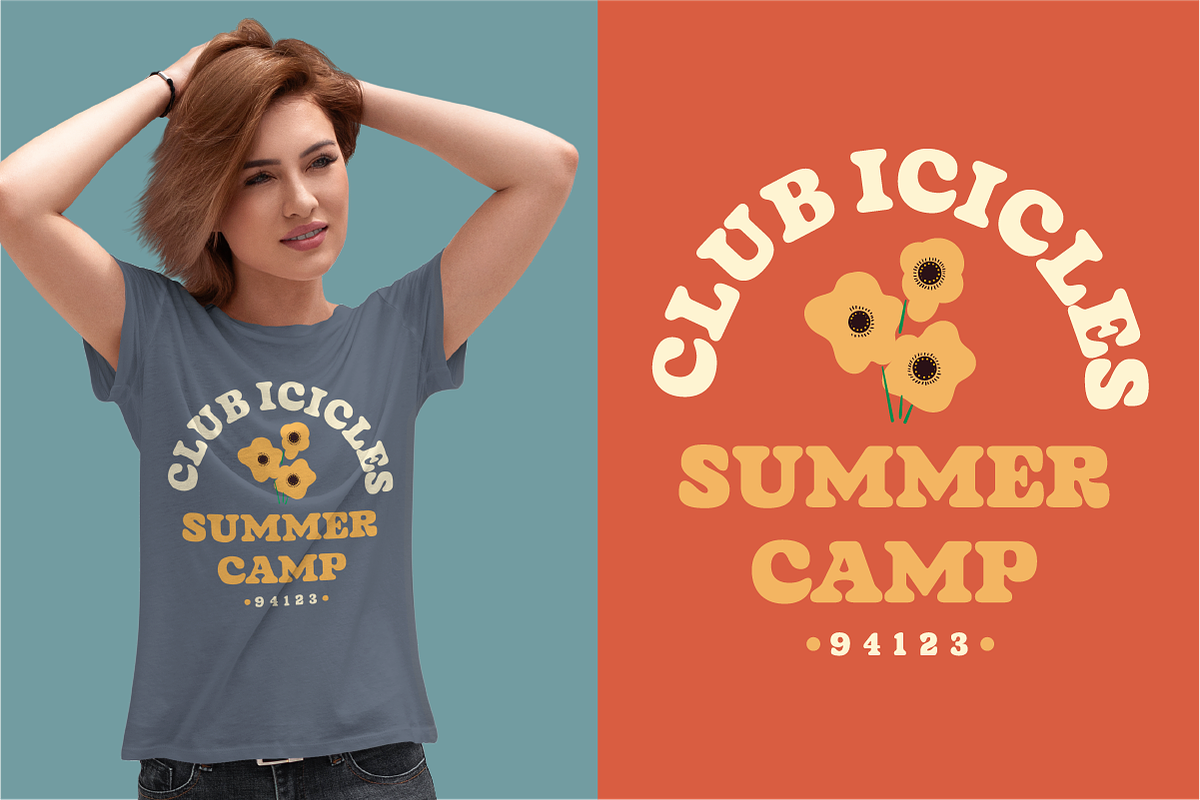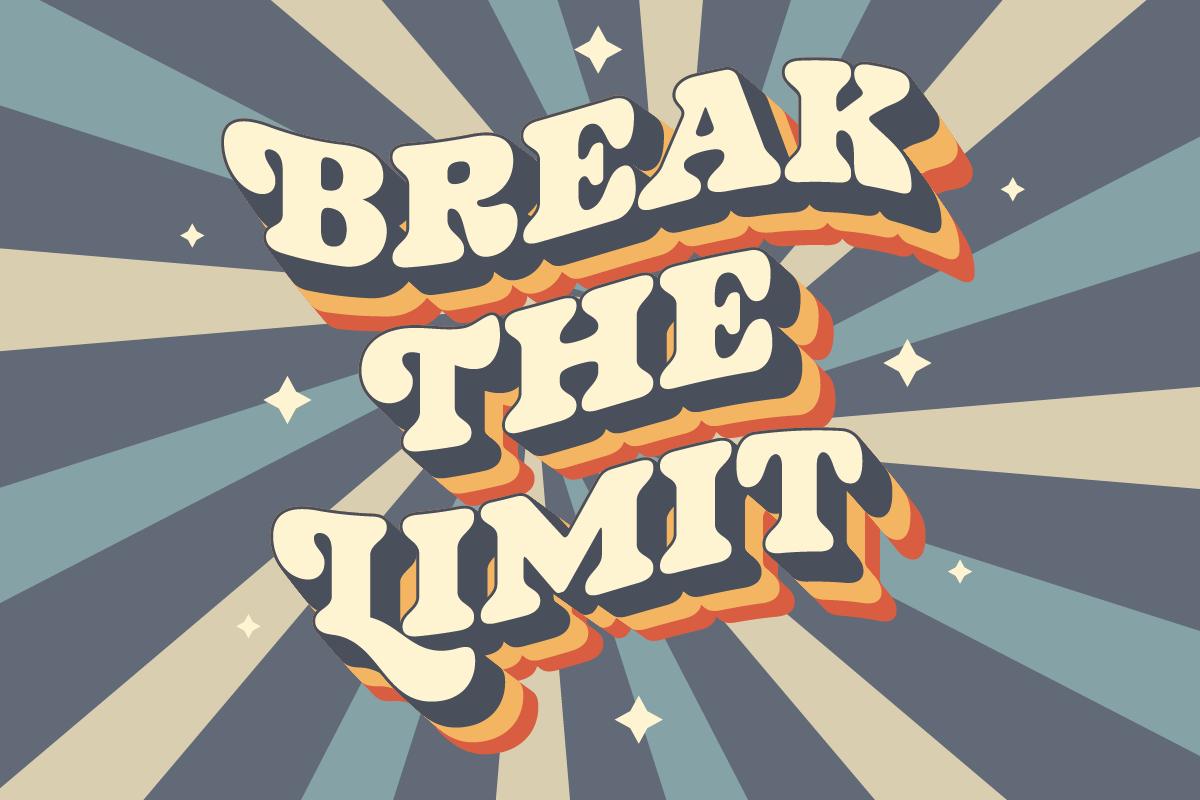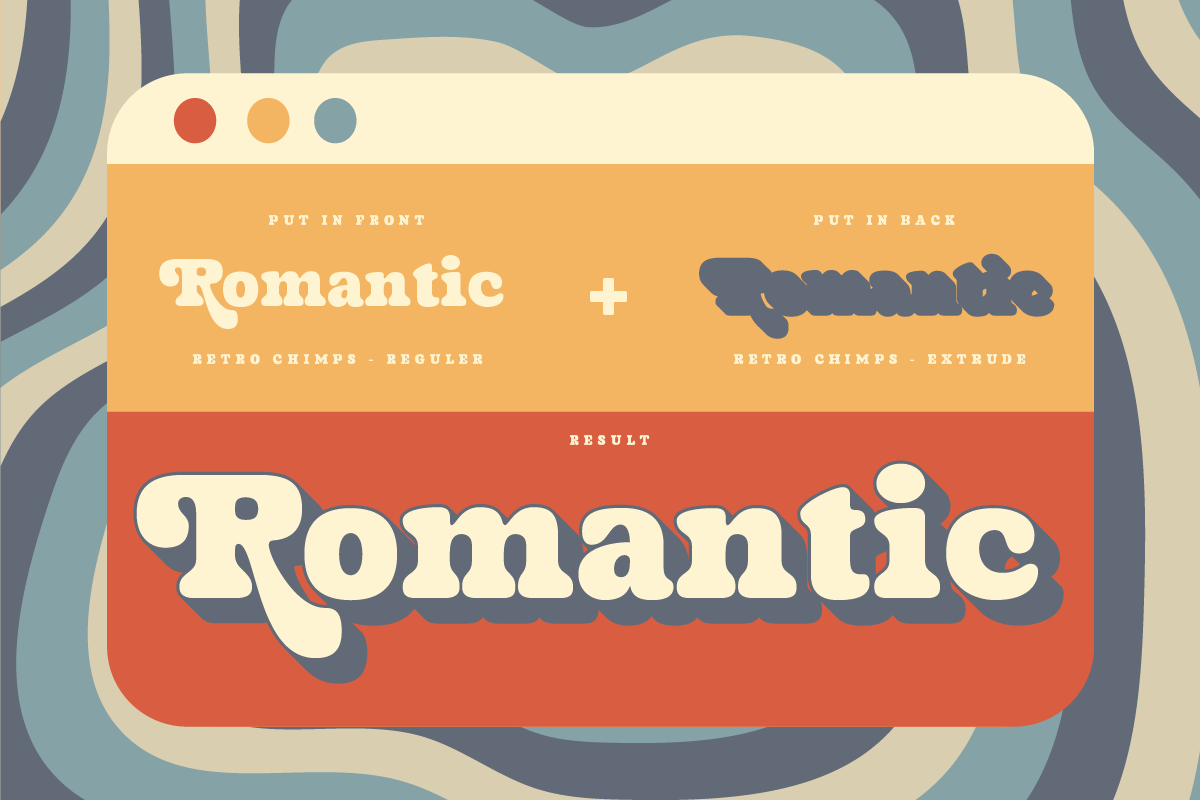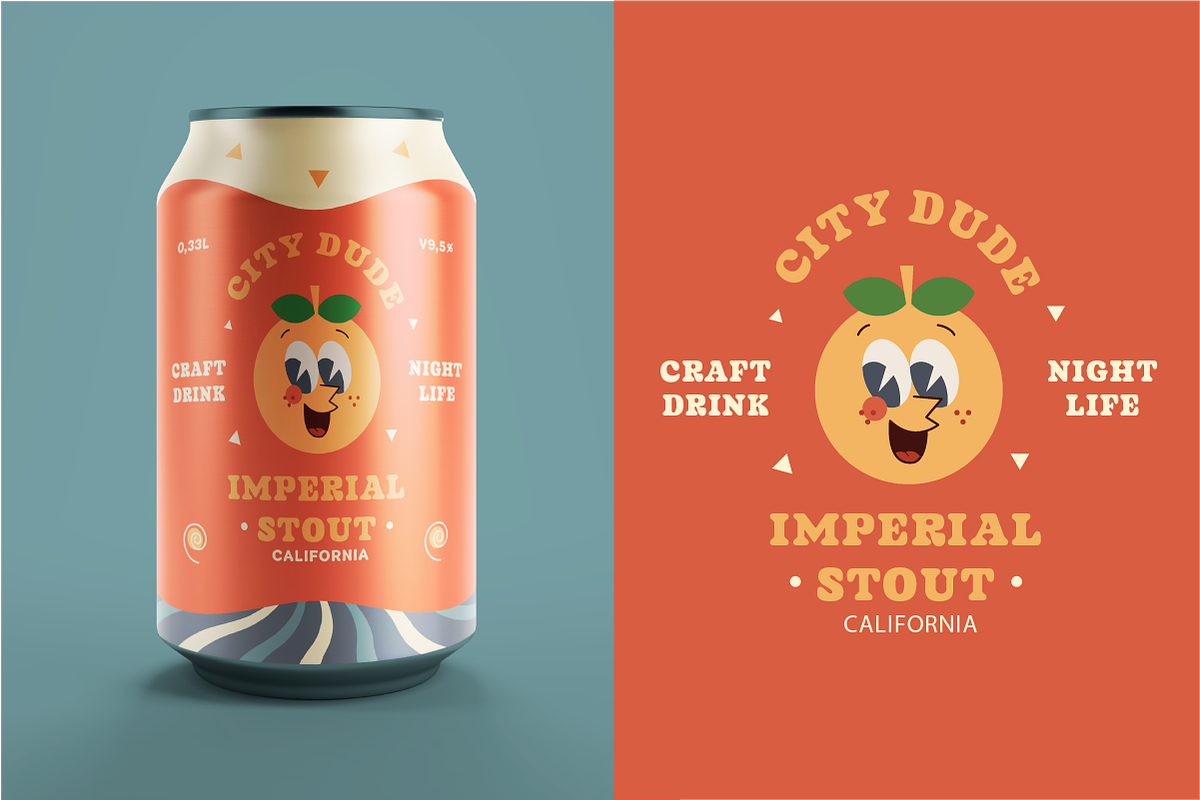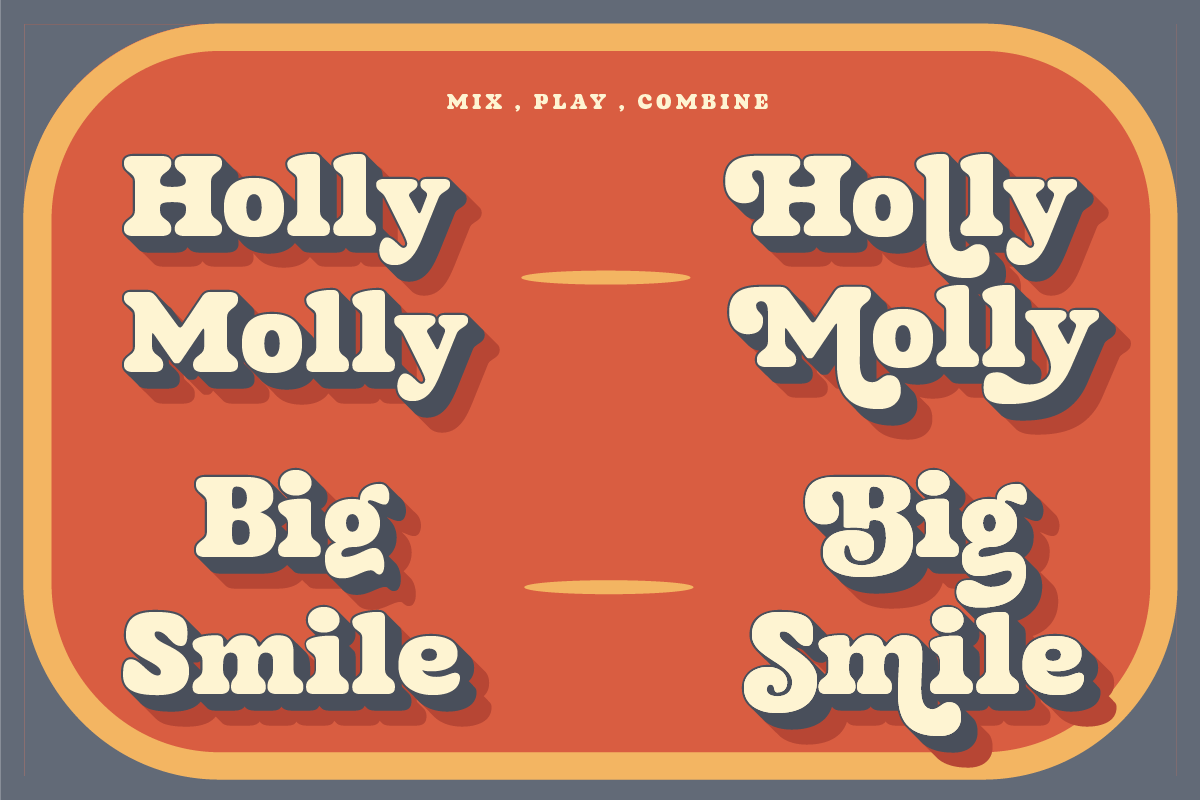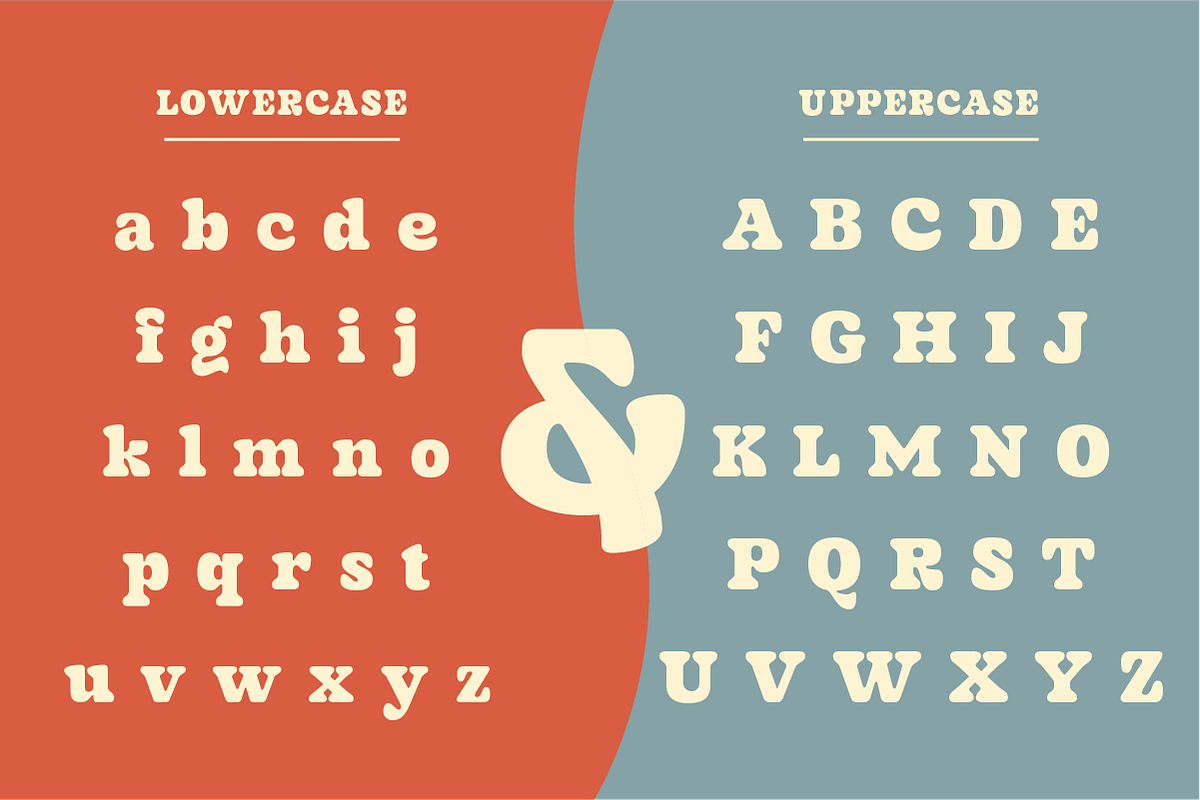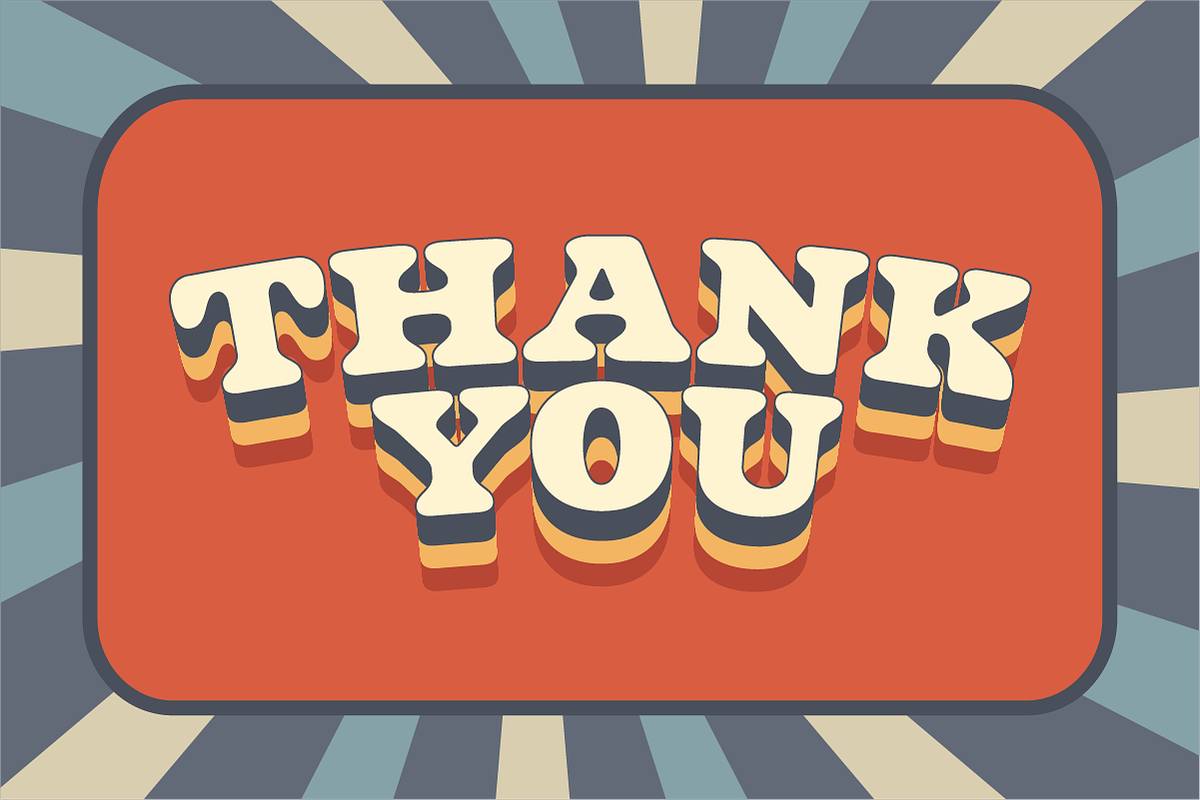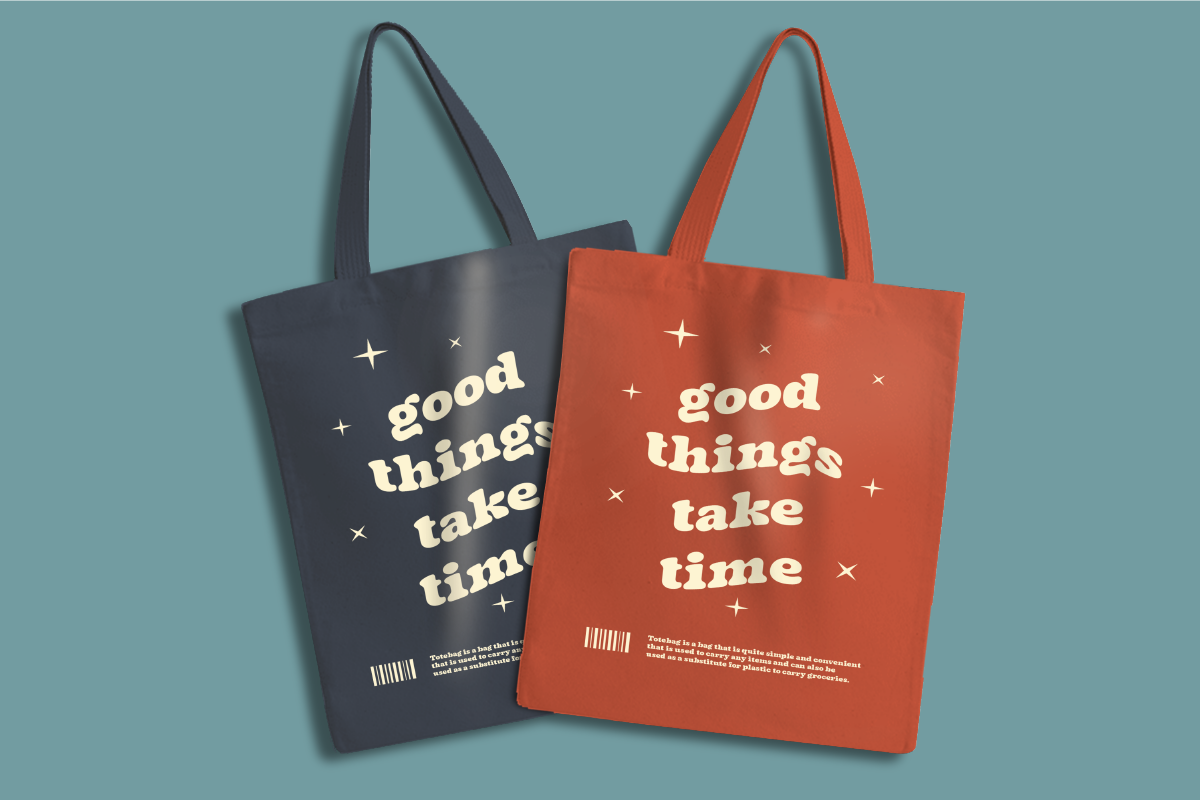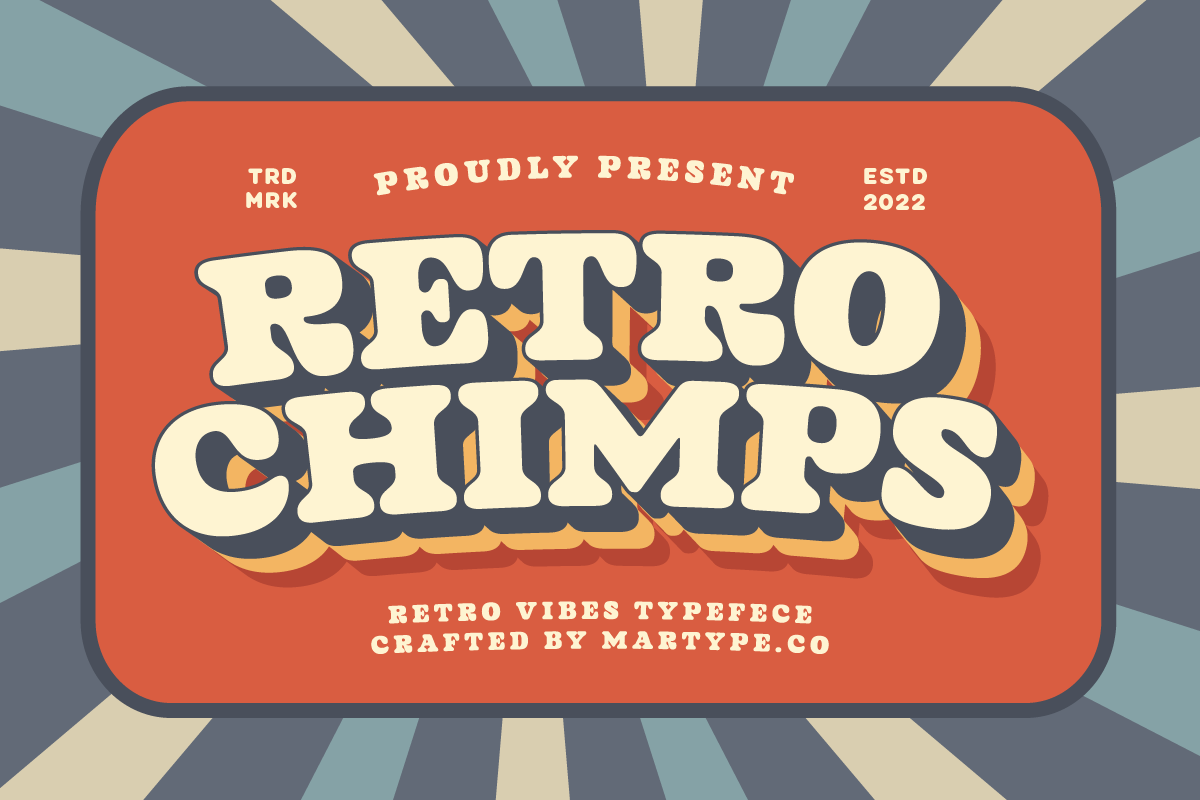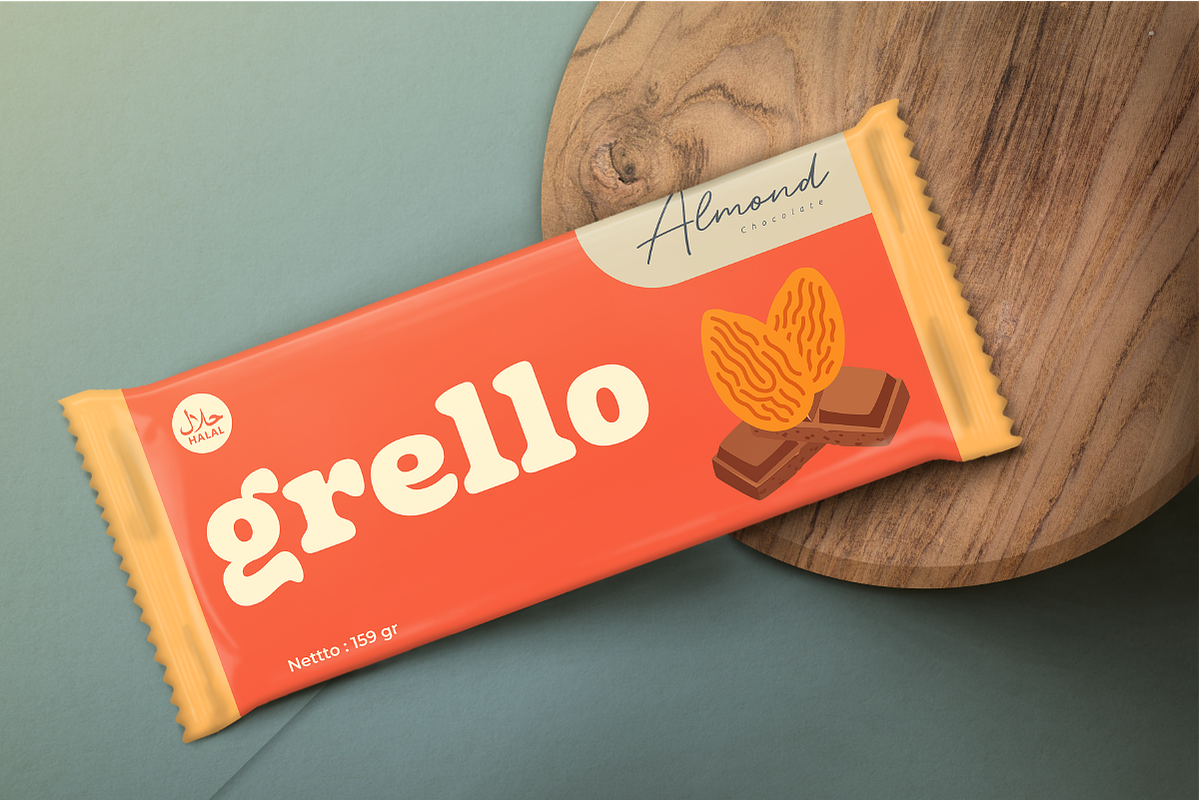
Retro Chimps Vintage Display Font
Retro Chimps
A vintage display font with bold style with extrude shadow for perfect stacking font style.
- Retro Chimps
- Retro Chimps Extruded